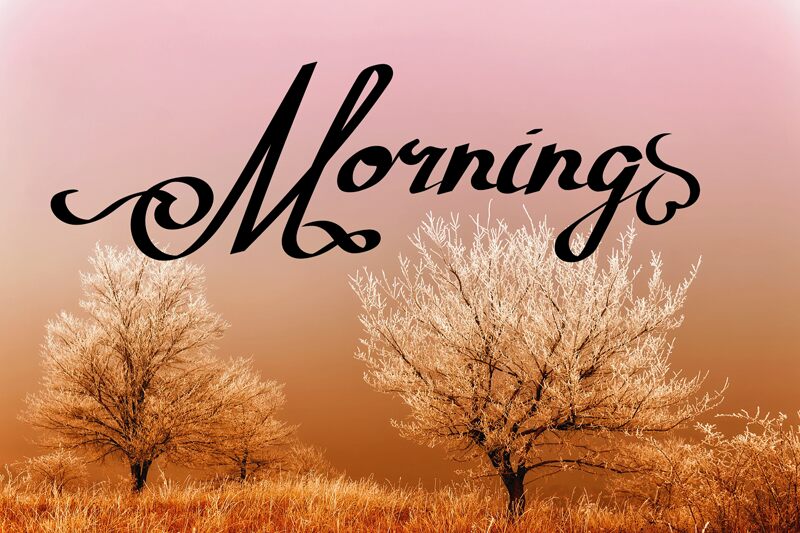
Morning
The "Morning" font by SSI.Scraps exudes a captivating calligraphic charm. Its sweeping, elegant strokes convey a sense of grace and sophistication, making it an ideal choice for a wide range of design projects. The font's distinctive flourishes and flowing lines add a touch of artistry and personality to any text, elevating the overall aesthetic.
Versatile in nature, the "Morning" font lends itself beautifully to wedding invitations, branding materials, and editorial layouts, where its refined and distinctive style can truly shine. Whether you're crafting a high-end magazine spread or designing a captivating social media post, this font's timeless appeal and versatility make it a valuable asset in the creative toolbox.